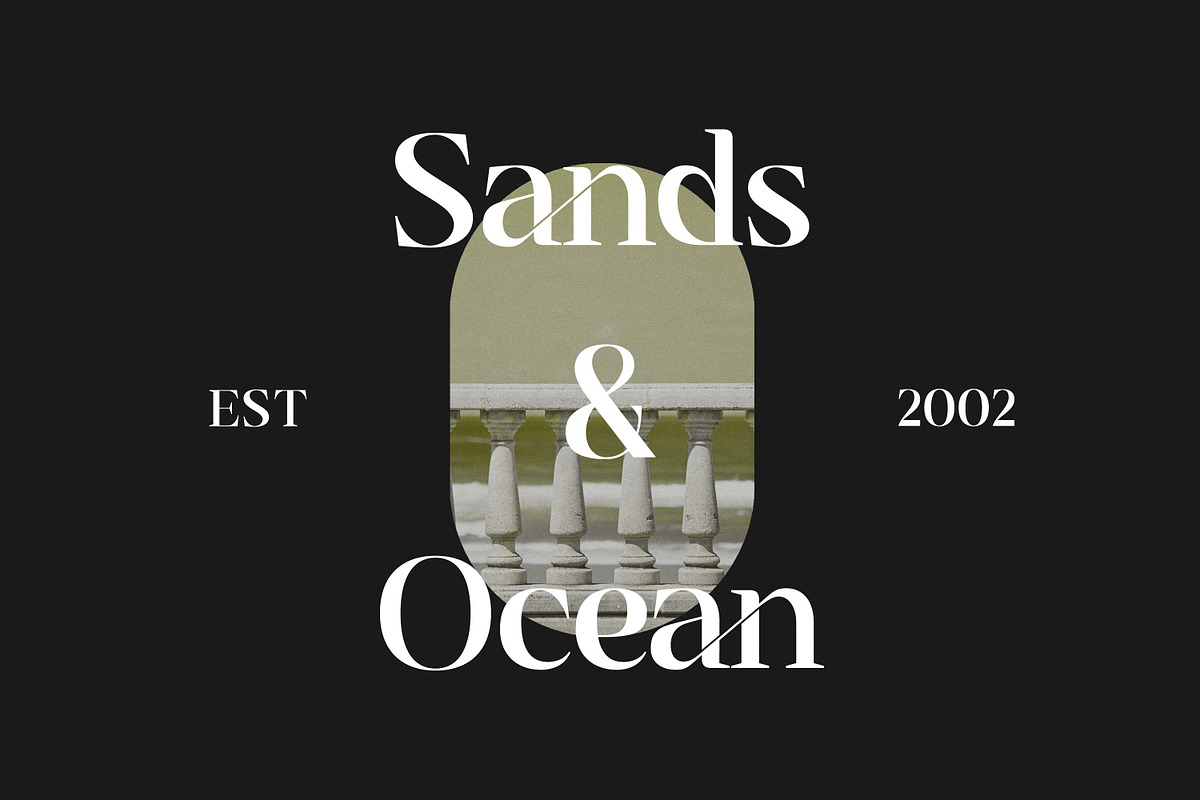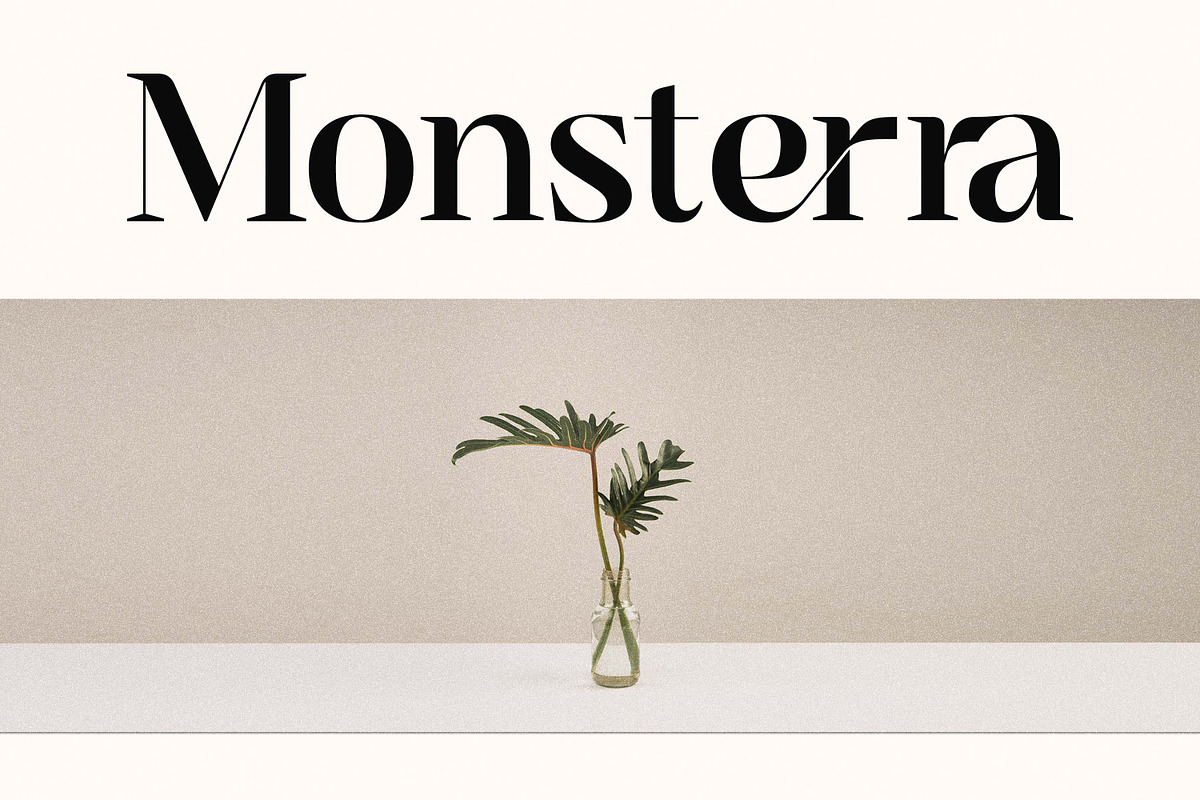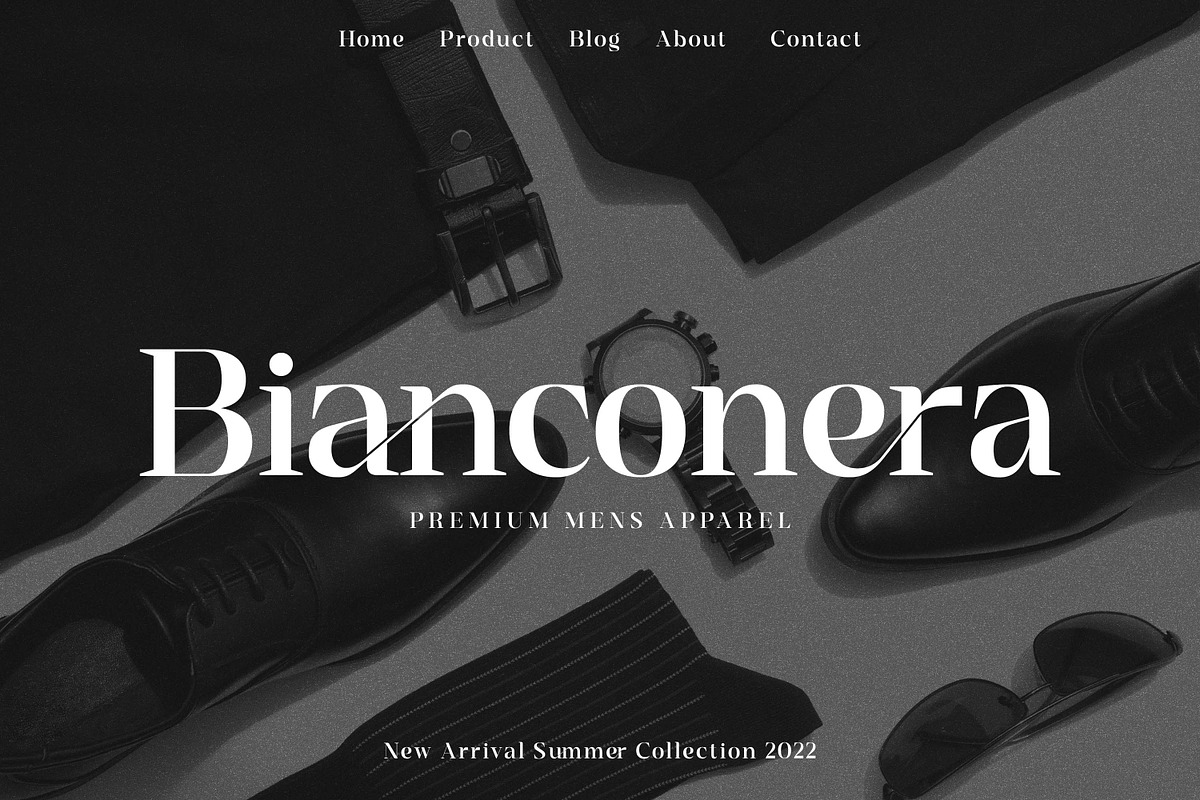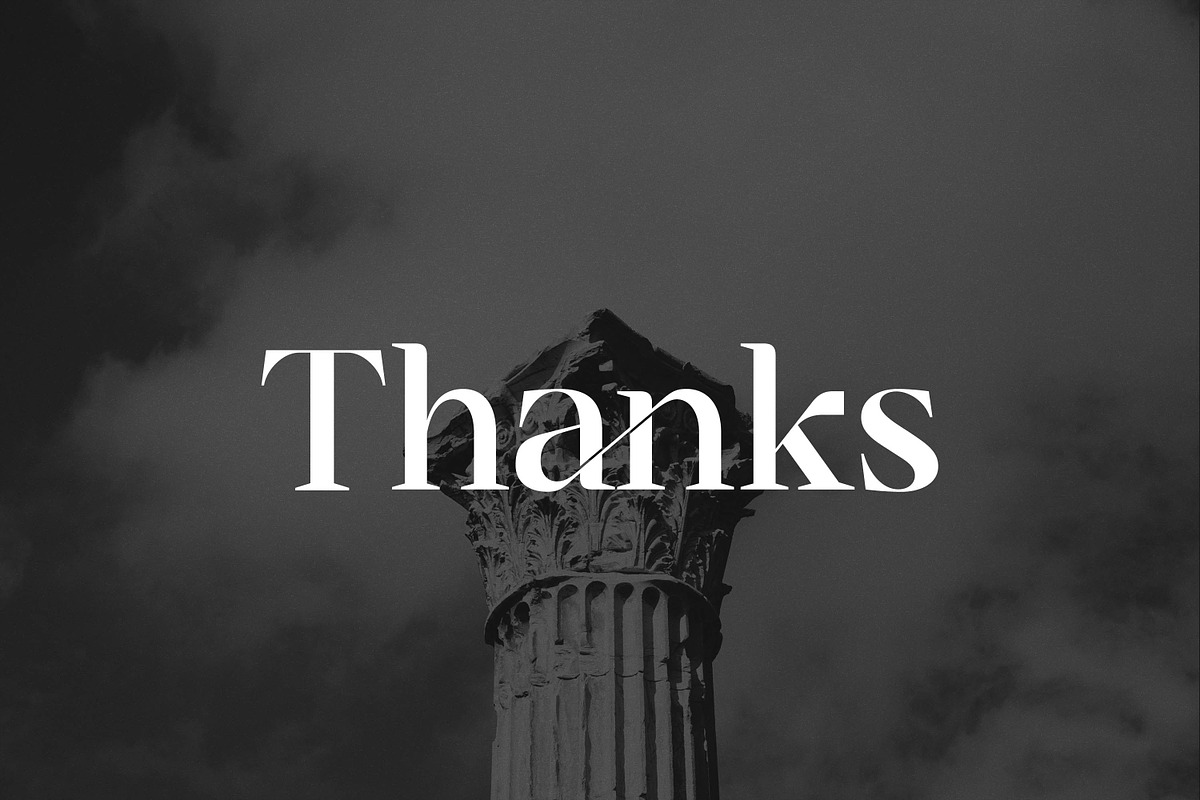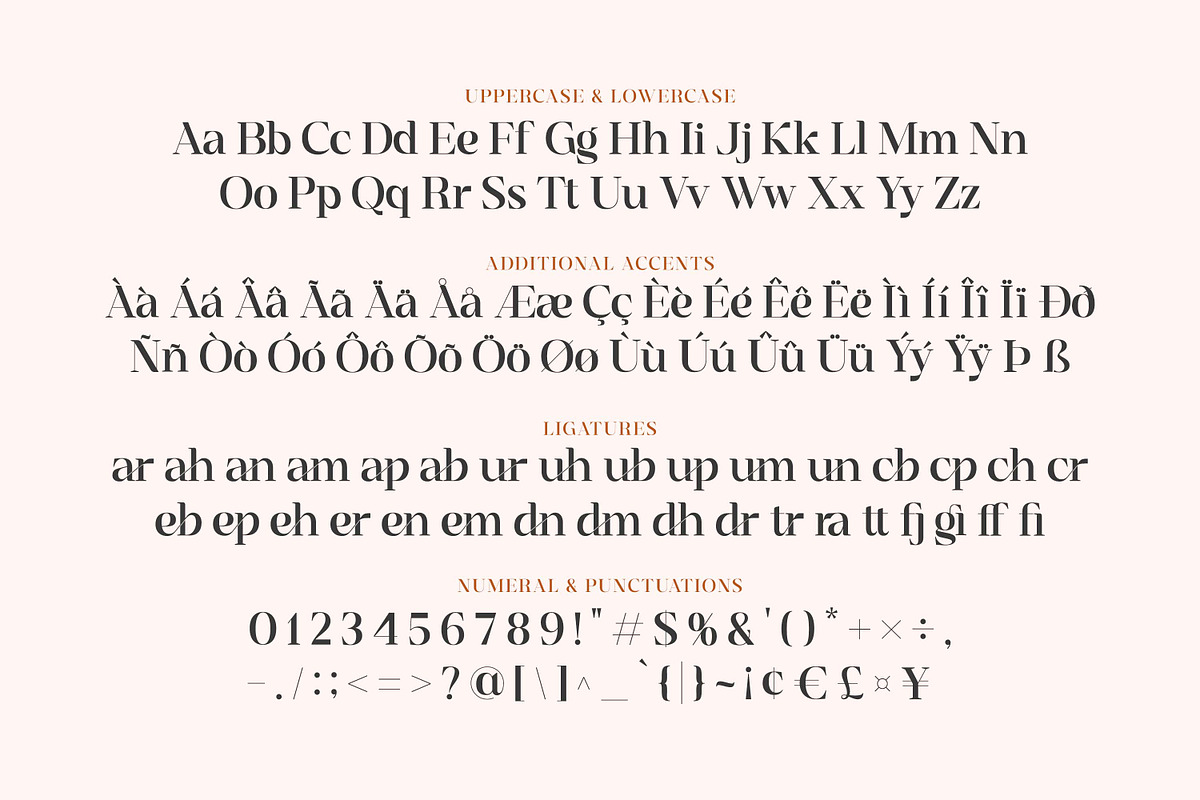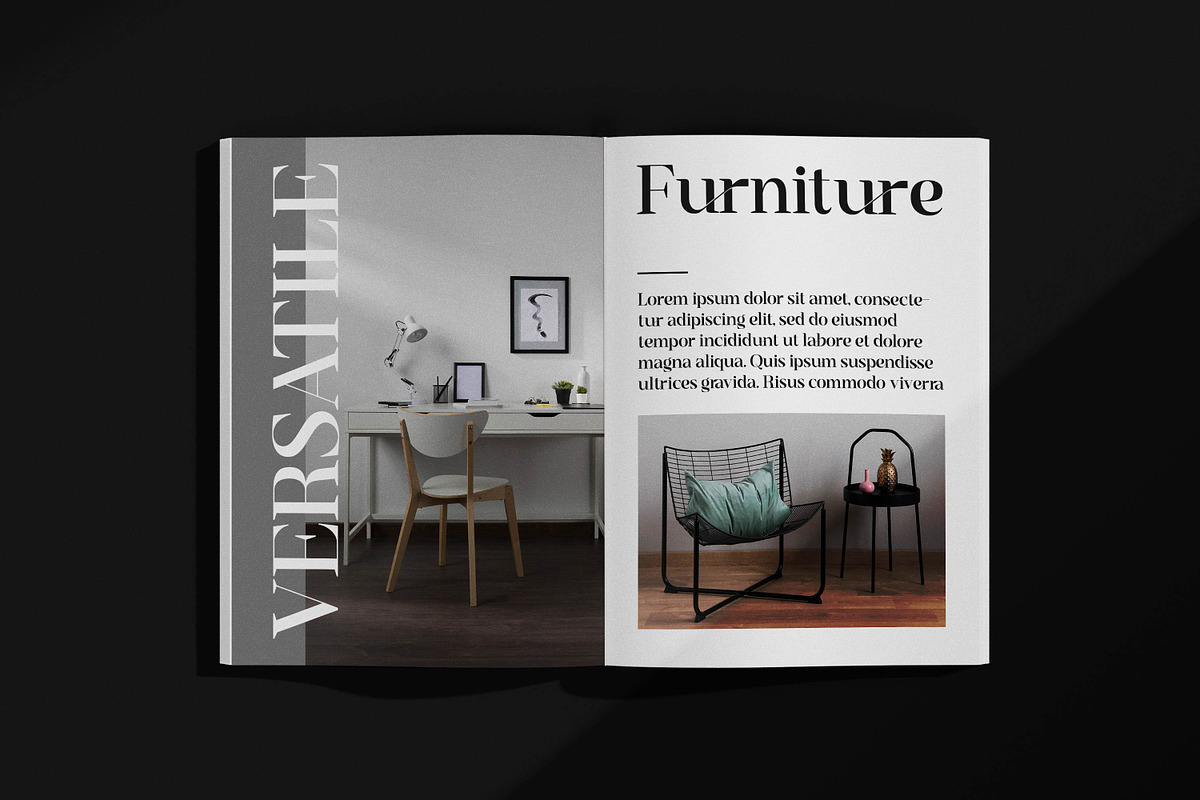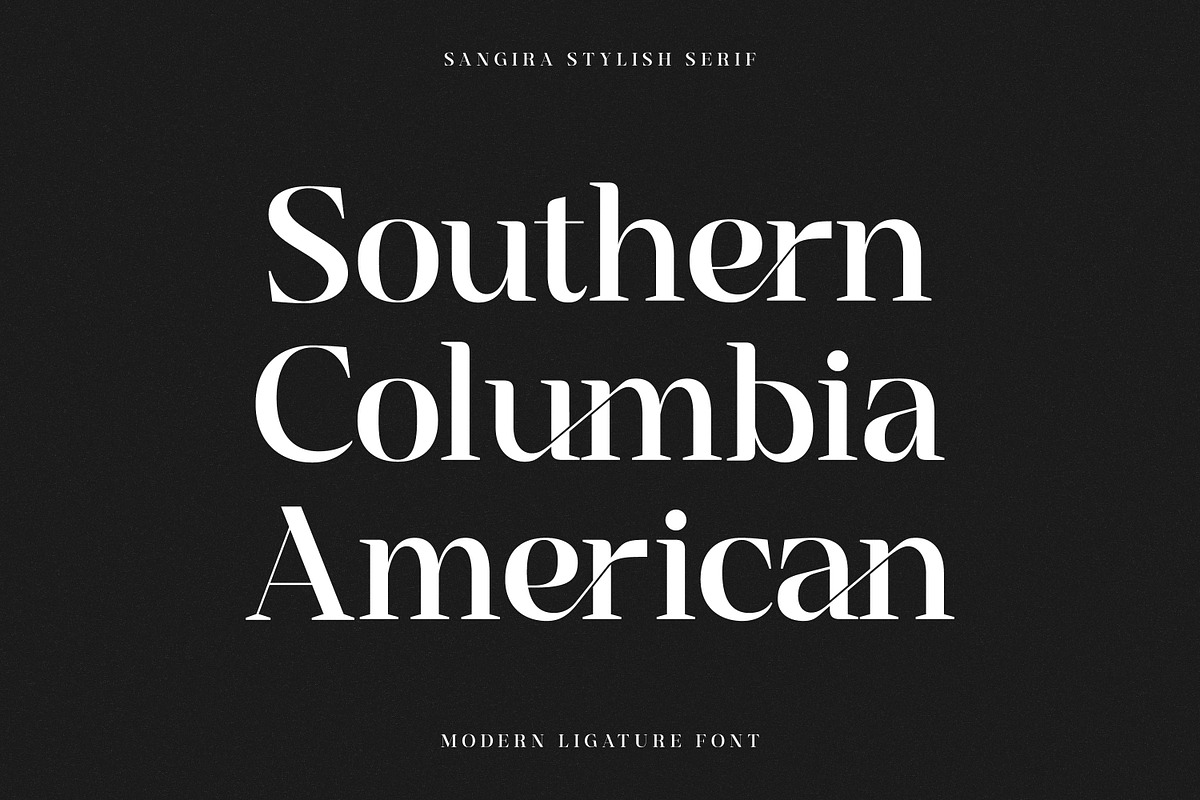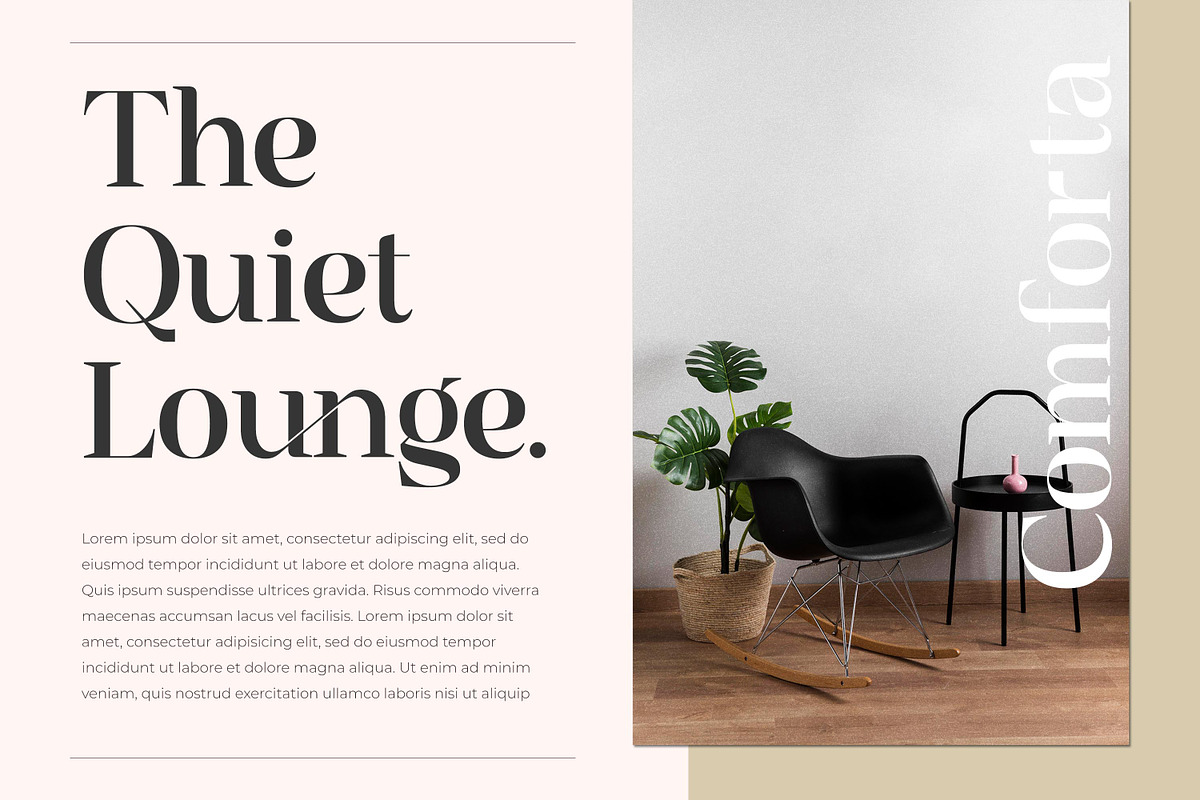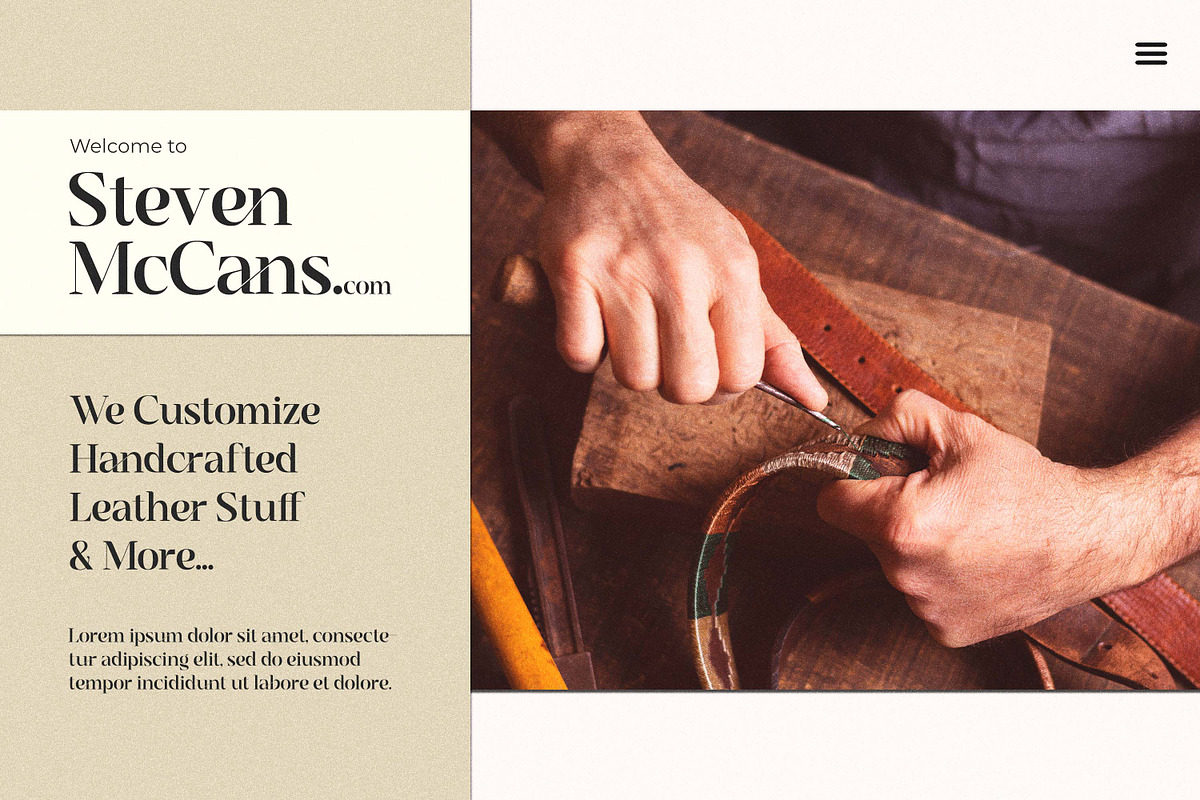
Sangira - Modern Ligature Serif
Introducing Sangira - Modern Ligature Serif inspired by the famous minimalist logo, perfect for the purposes of designing templates, brochures, videos, advertising branding, logos and more.
- 33 Ligatures